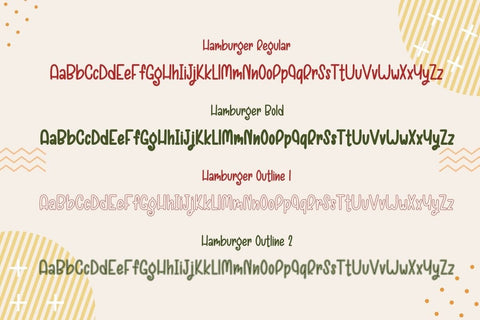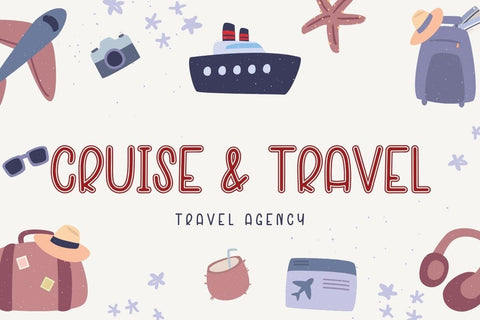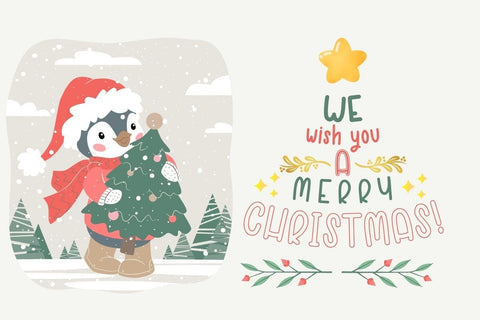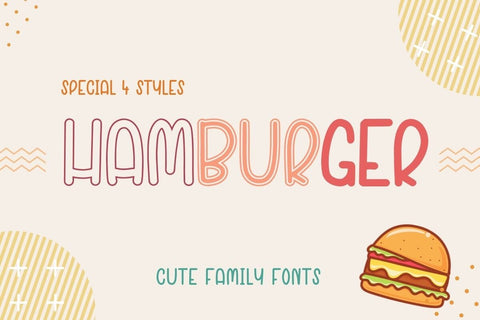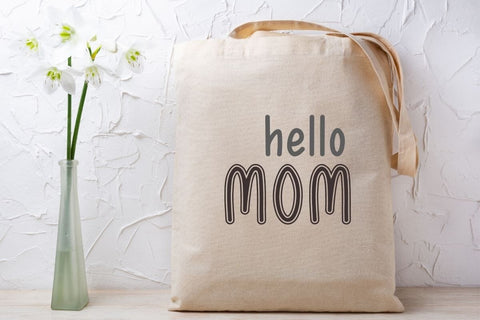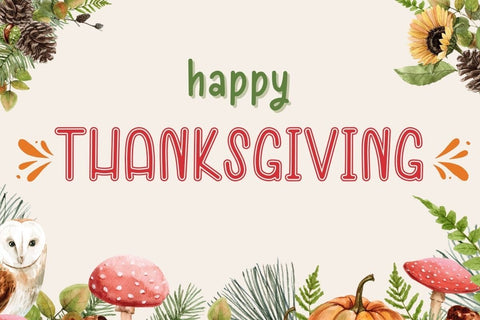
Hamburger - Family Font
Hamburger is a cute and friendly handwritten font in 4 styles. Whether you’re using it for crafts, digital design, presentations, or making greeting cards, this font has the potential to become your favorite go-to font, no matter the occasion!